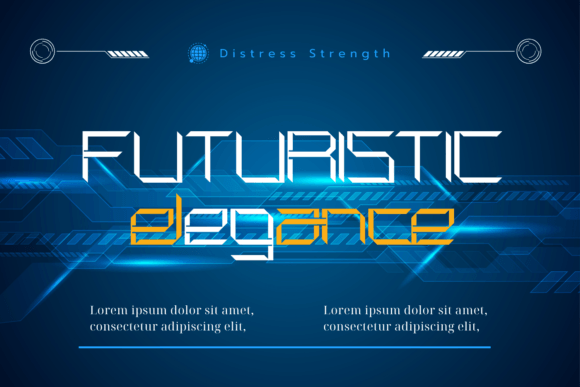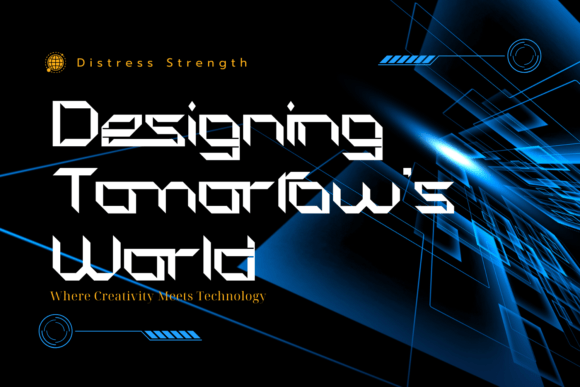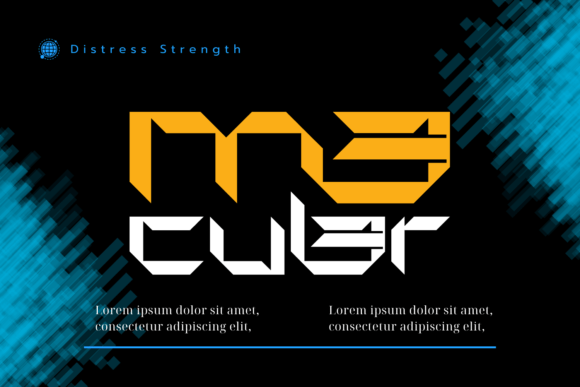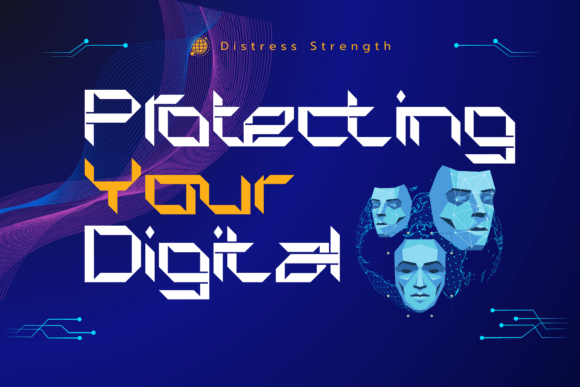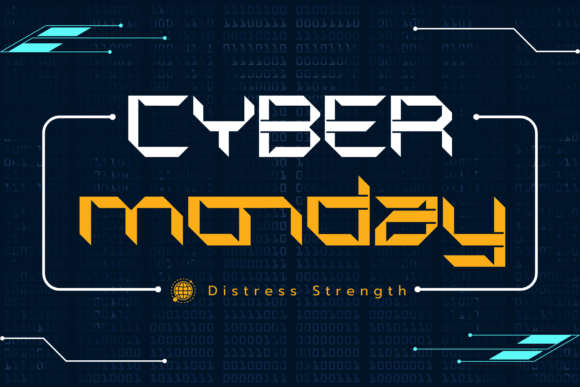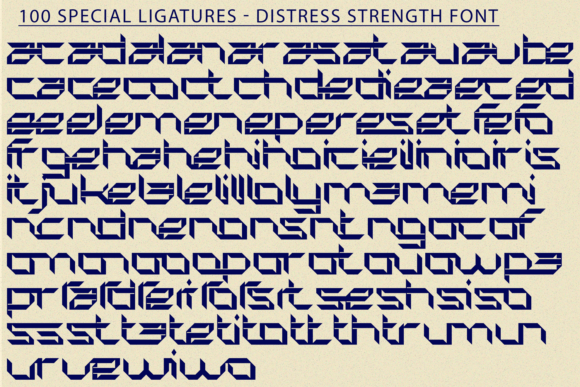
Introduction to Distress Strength Font
Distress Strength is a cool, hi-tech cyberpunk display font.
Add it to your unique projects and every audience will be impressed .
Key Features of Distress Strength Font
Why Choose Distress Strength Font?
Distress Strength Font offers exceptional quality and versatility, making it a valuable addition to your design toolkit. Whether you’re creating for personal projects or commercial use, Distress Strength Font delivers professional results.